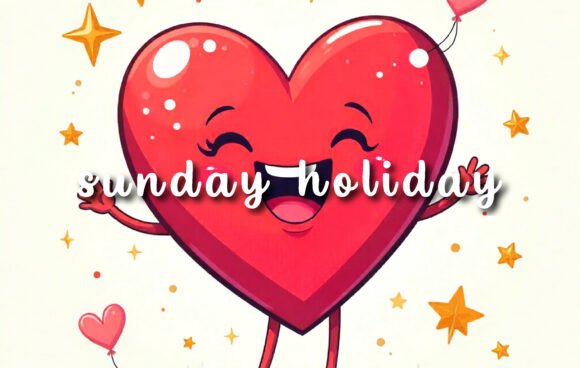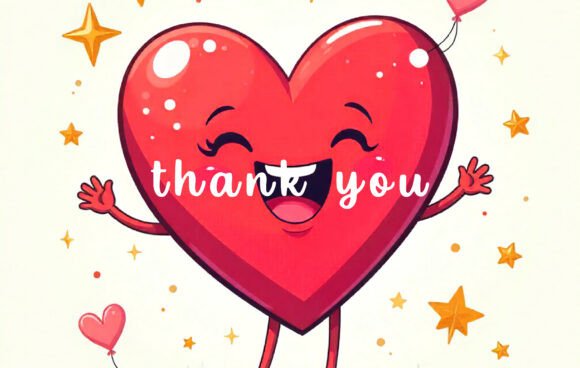
Spreading Joy, One Letter at a Time
Have you ever been working on a design project and suddenly felt the need to infuse it with a little extra love and care? You know, that moment when you want to create something that makes people smile and feel all warm inside? For designers looking to add a dash of whimsy and personality to their work, there’s one font that stands out from the rest: the Bright Heart Font.
This cheerful and bold script font is more than just a pretty face – it’s a way to spread joy and warmth through your designs. With its soft curves and handwritten charm, the Bright Heart Font is perfect for crafting Valentine’s cards, stickers, kids’ designs, or branding for playful products. By incorporating this lovable font into your work, you’ll be able to add a dose of sweetness and fun that’s sure to delight your audience.
- Unique Characteristics: Bright Heart Font features a unique blend of modern and vintage elements, with elegant lines, subtle flair, and a touch of whimsy, making it perfect for creative and design-driven projects.
Bright Heart Font Review
Overall, I think Bright Heart Font has a lot going for it ✨. The designer has clearly put a lot of thought into creating a font that is both visually appealing and highly legible. The font’s clean lines, rounded edges, and subtle texture give it a friendly and approachable feel that’s perfect for body text or display headings.
Some of the strengths of Bright Heart Font include:
- High legibility: Even at small sizes, the font remains easy to read.
- Unique texture: The subtle texture adds a touch of personality to the font without overpowering the text.
- Consistent design: The font’s design is consistent throughout, making it easy to use and predict.
However, there are a few limitations to consider ⚠️:
- Limited language support: Bright Heart Font may not support all languages or character sets.
- Not ideal for highly technical text: While the font is great for body text, it may not be the best choice for highly technical or dense text.
- Not as bold as some other fonts: The font’s bold weight may not be as dramatic as some other fonts on the market.
Overall, I think Bright Heart Font is a solid choice for designers looking for a friendly and approachable font. While it may not be the best choice for every project, it’s definitely worth considering for body text, display headings, and other applications where a clean and legible font is desired.
Tips for Getting the Most Out of Bright Heart Font
1. Use Bright Heart Font for headings and titles to create a visually appealing design.
2. Experiment with different font sizes and colors to create contrast and emphasis.
3. Use Bright Heart Font in combination with other fonts to create a unique and eye-catching design.
Common Use Cases for Bright Heart Font